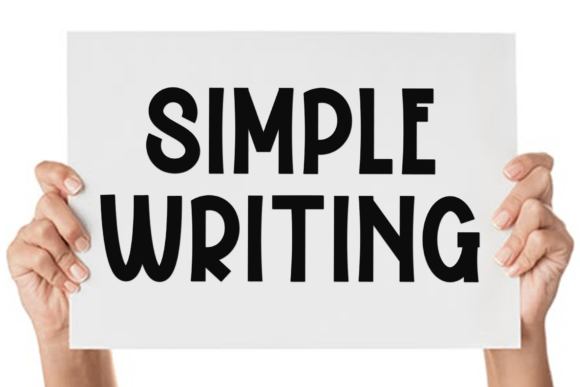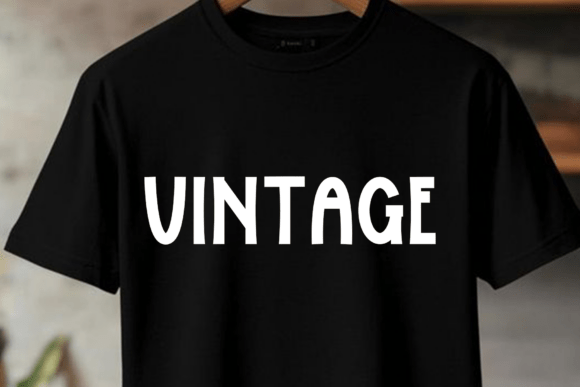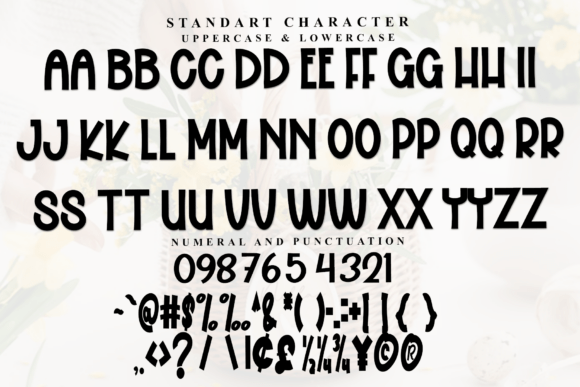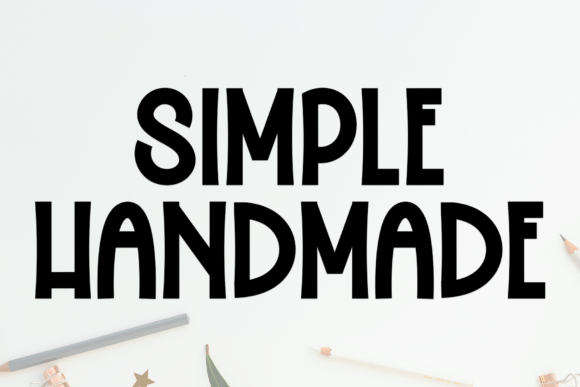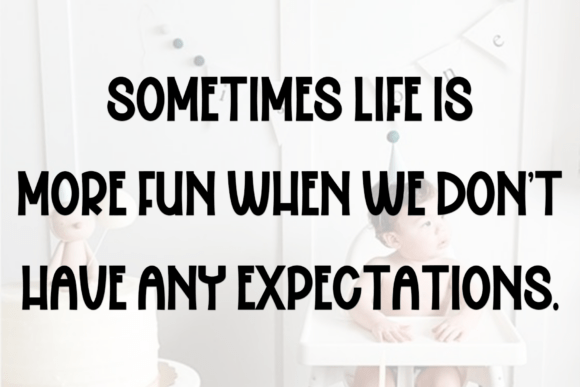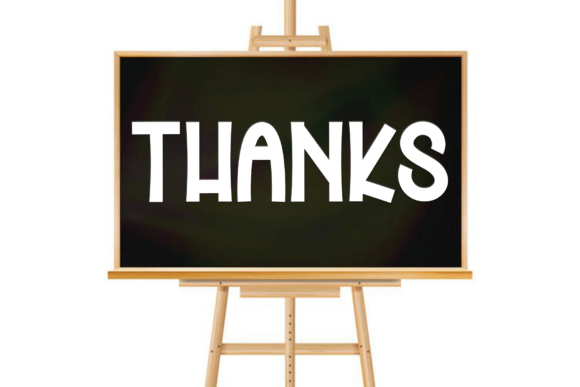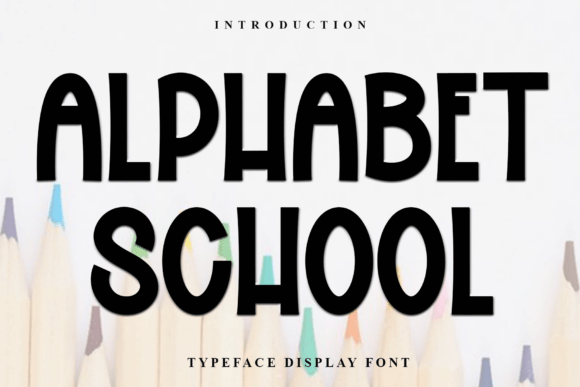
Introducing Alphabet School Font: A Sweet and Friendly Handwritten Delight
Are you a designer, crafter, or DIY enthusiast looking for a font that can add a personal touch to your projects? Look no further than Alphabet School Font, a sweet and friendly handwritten font that’s perfect for a wide range of designs. With its natural and unique style, Alphabet School Font is incredibly versatile and can be used for everything from greeting cards and invitations to branding and packaging.
The Characteristics of Alphabet School Font
Alphabet School Font is a handwritten font that exudes warmth and friendliness. Its natural and unique style makes it stand out from more traditional fonts, and its sweetness and charm make it perfect for designs that require a personal touch. The font is incredibly legible, making it suitable for both digital and print designs.
What Makes Alphabet School Font So Versatile?
The only limit to using Alphabet School Font is your imagination! This font can be used for a wide range of designs, including:
- Greeting cards and invitations: Add a personal touch to your cards and invitations with Alphabet School Font’s sweet and friendly style.
- Branding and packaging: Use Alphabet School Font to create unique and eye-catching branding and packaging for your products.
- Digital designs: Alphabet School Font is perfect for digital designs, such as social media graphics, blog posts, and website headers.
- Crafting and DIY projects: Add a personal touch to your crafting and DIY projects, such as scrapbooking, journaling, and handmade gifts.
Why Designers and Crafters Love Alphabet School Font
Designers and crafters love Alphabet School Font for its unique and versatile style. Here are just a few reasons why:
- Easy to read: Alphabet School Font is incredibly legible, making it easy to read and understand.
- Unique style: Alphabet School Font’s natural and unique style makes it stand out from more traditional fonts.
- Versatile: Alphabet School Font can be used for a wide range of designs, from digital designs to print designs.
- Personal touch: Alphabet School Font adds a personal touch to designs, making them more special and unique.
Tips for Using Alphabet School Font
Here are a few tips for using Alphabet School Font:
- Use it for headings and titles: Alphabet School Font is perfect for headings and titles, adding a personal touch to your designs.
- Mix it with other fonts: Alphabet School Font pairs well with other fonts, so don’t be afraid to mix and match.
- Experiment with colors: Alphabet School Font looks great in a variety of colors, so experiment to find the perfect color for your design.
- Use it for digital and print designs: Alphabet School Font is suitable for both digital and print designs, making it a versatile font to have in your collection.
Alphabet School Font is a sweet and friendly handwritten font that’s perfect for designers, crafters, and DIY enthusiasts. Its natural and unique style makes it incredibly versatile, and its legibility and charm make it perfect for a wide range of designs. Whether you’re looking to add a personal touch to your designs or create unique and eye-catching branding and packaging, Alphabet School Font is the perfect choice.